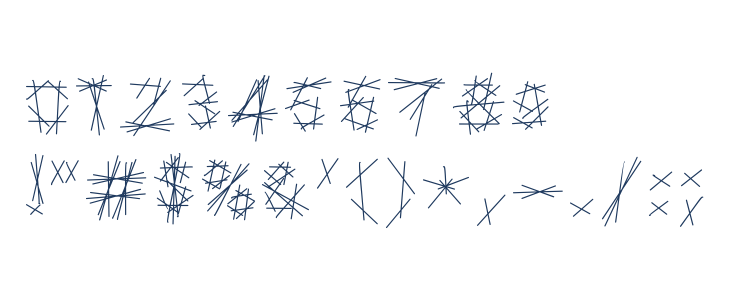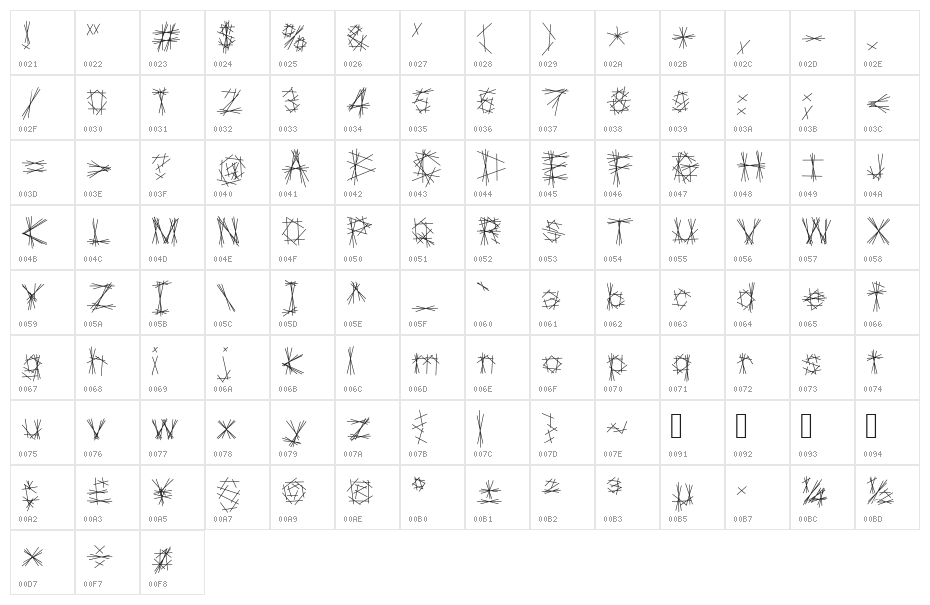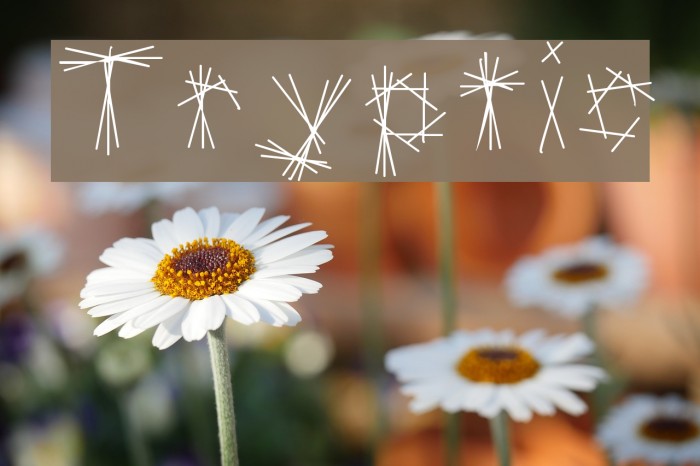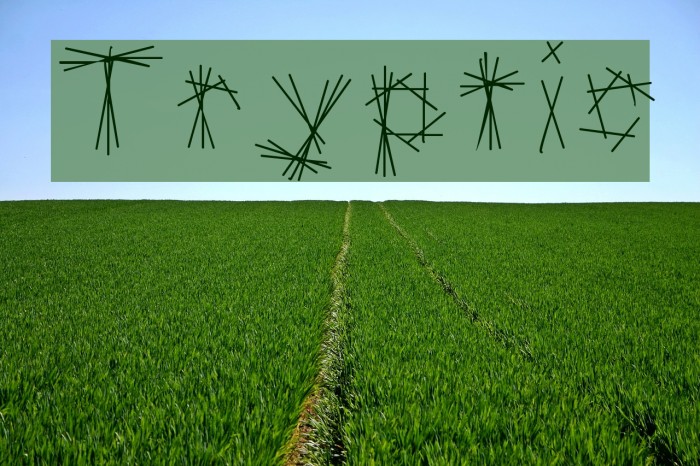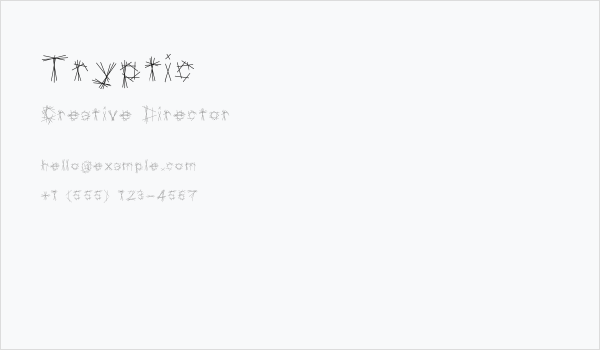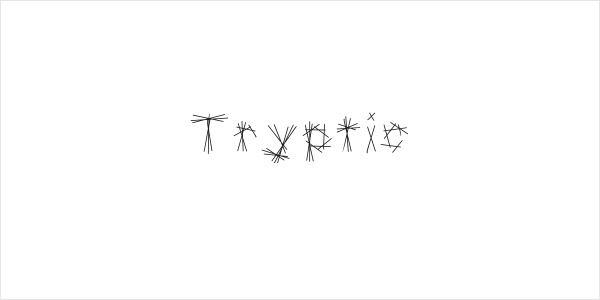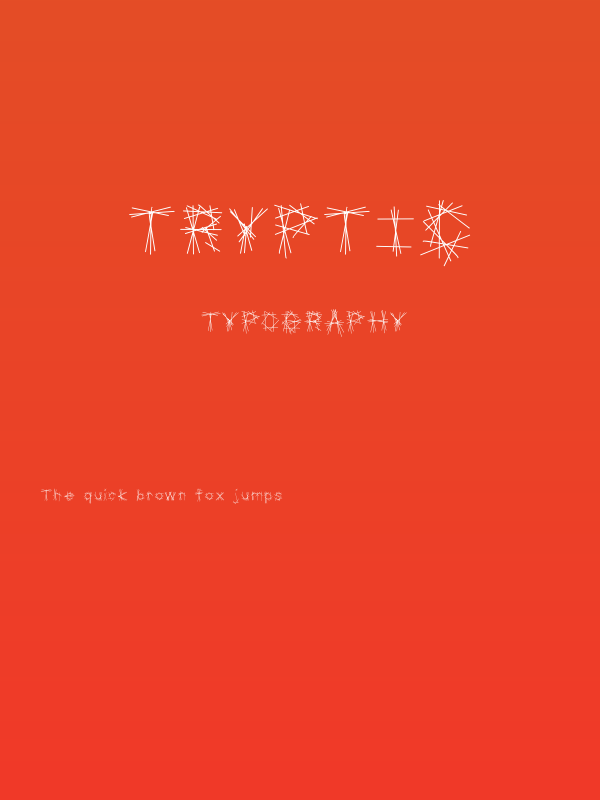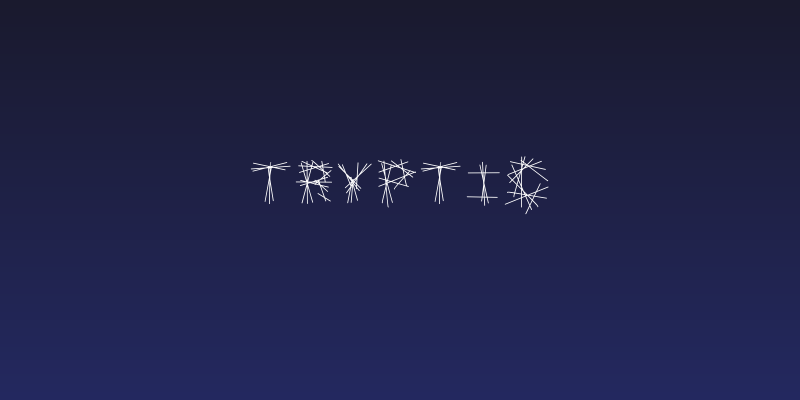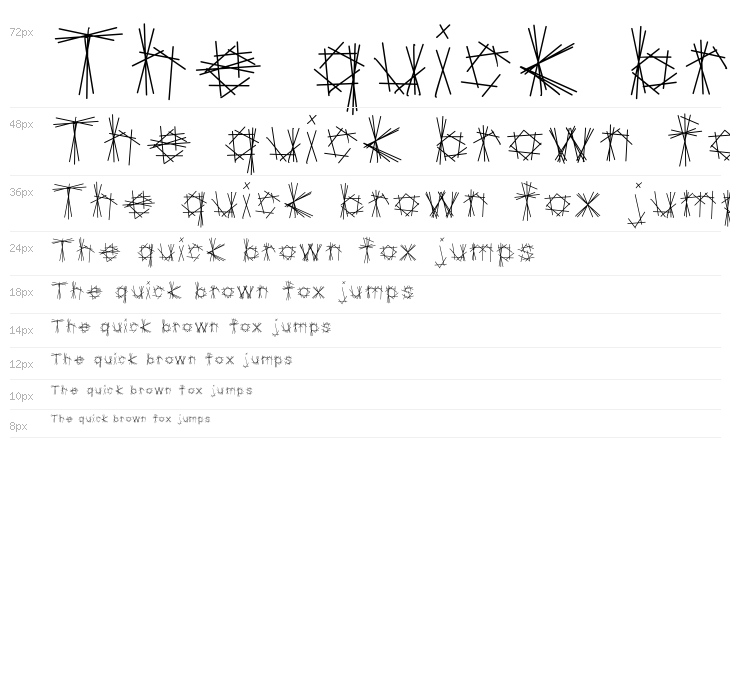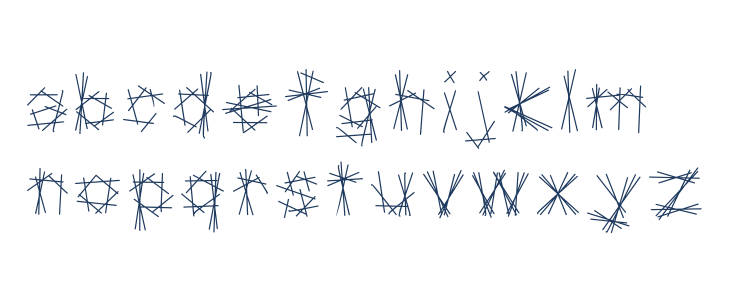
Tryptic Font
Tryptic Description
This font features a highly abstract and artistic design, resembling a collection of intersecting lines and strokes that form each character. The letters are composed of multiple overlapping lines, creating a chaotic yet intriguing visual effect. The design is reminiscent of a sketch or a series of random strokes, giving it a unique and unconventional appearance. This font lacks uniformity in stroke thickness and alignment, contributing to its distinct and avant-garde style. It is not suitable for readability in body text but serves as an artistic expression in graphic design.
| Overall Style | Abstract, Artistic |
| Use Case | Logos, Artistic designs, Posters |
| Proposed Projects | Ideal for experimental art projects, abstract posters, or unique branding that seeks to stand out with an unconventional look. |